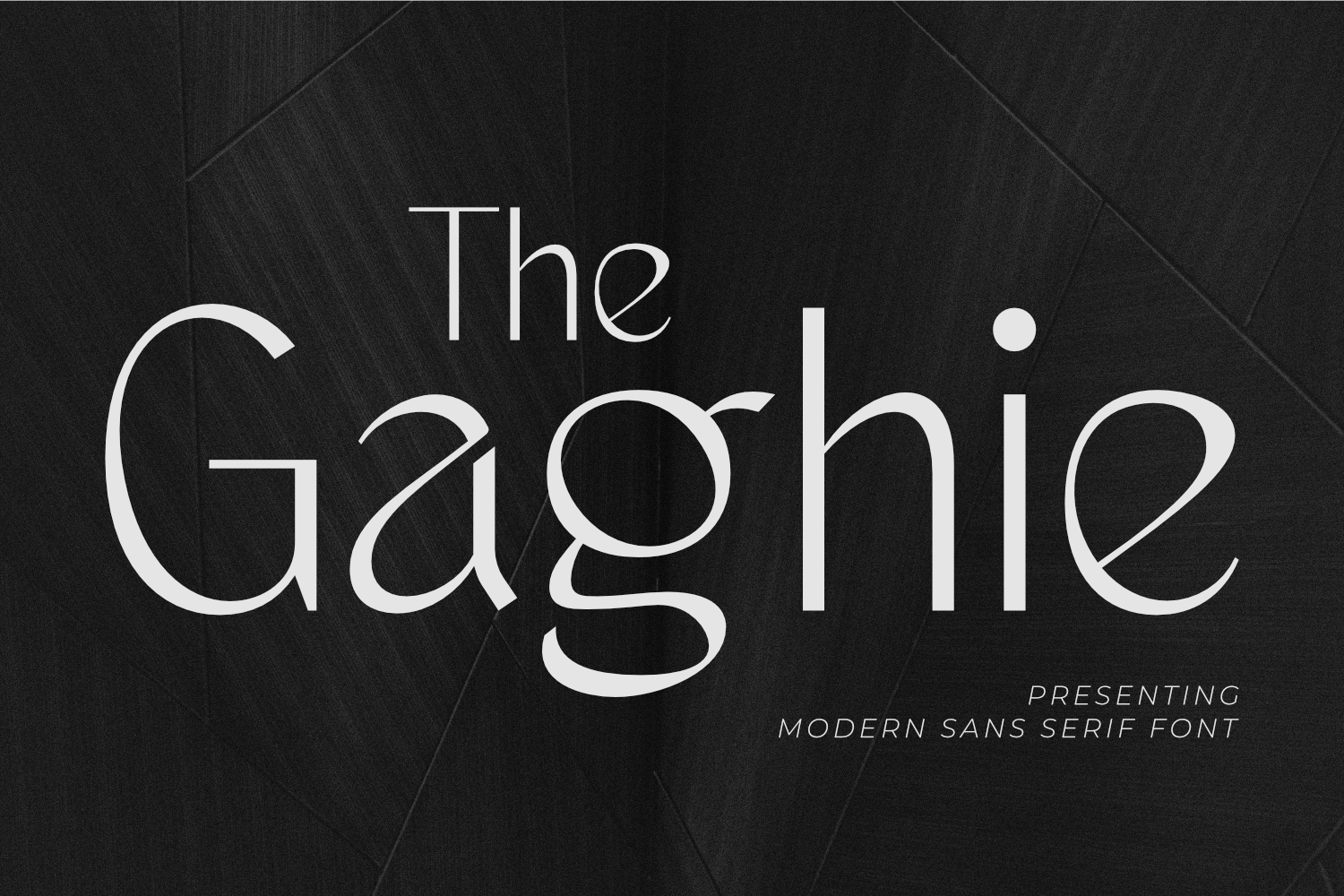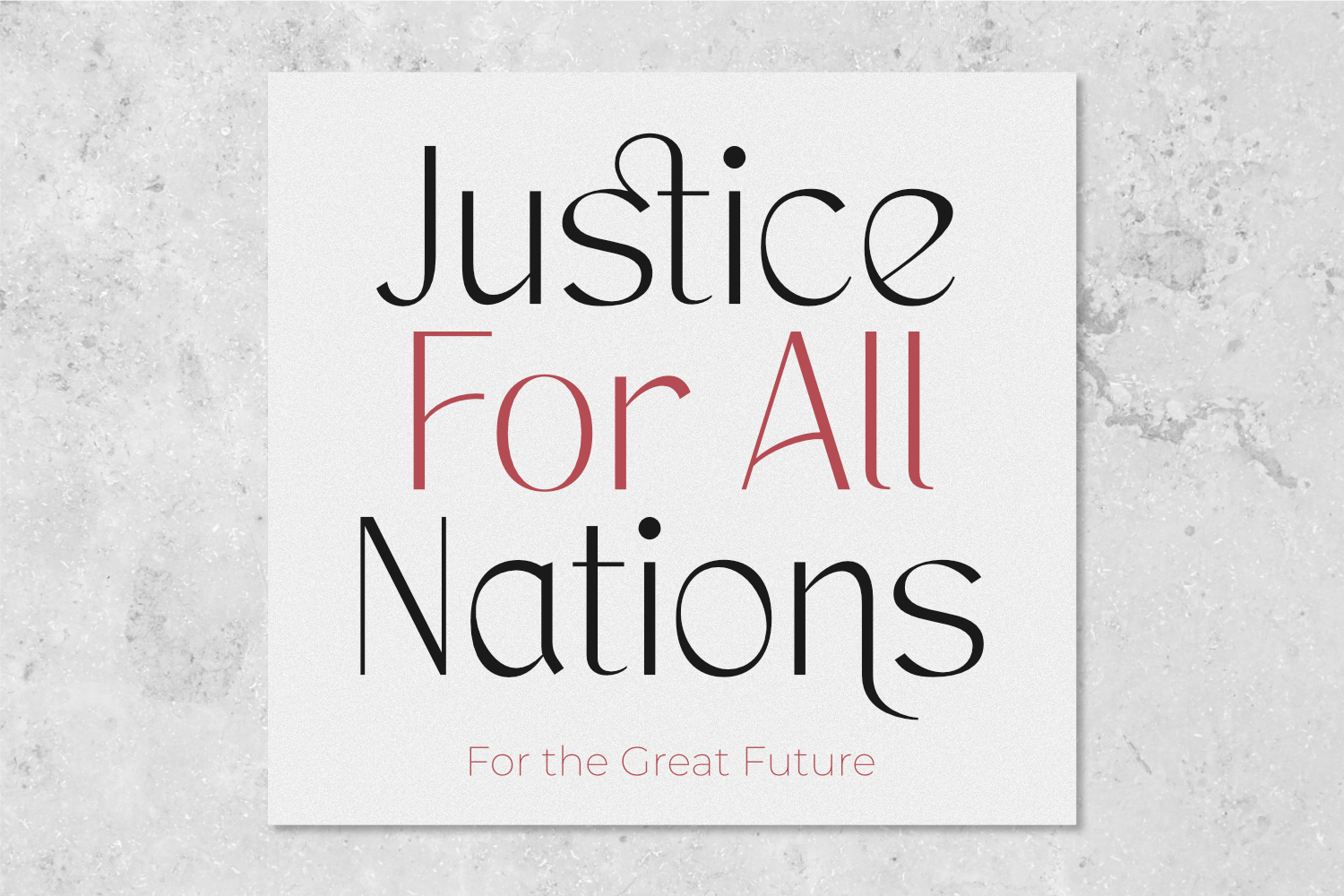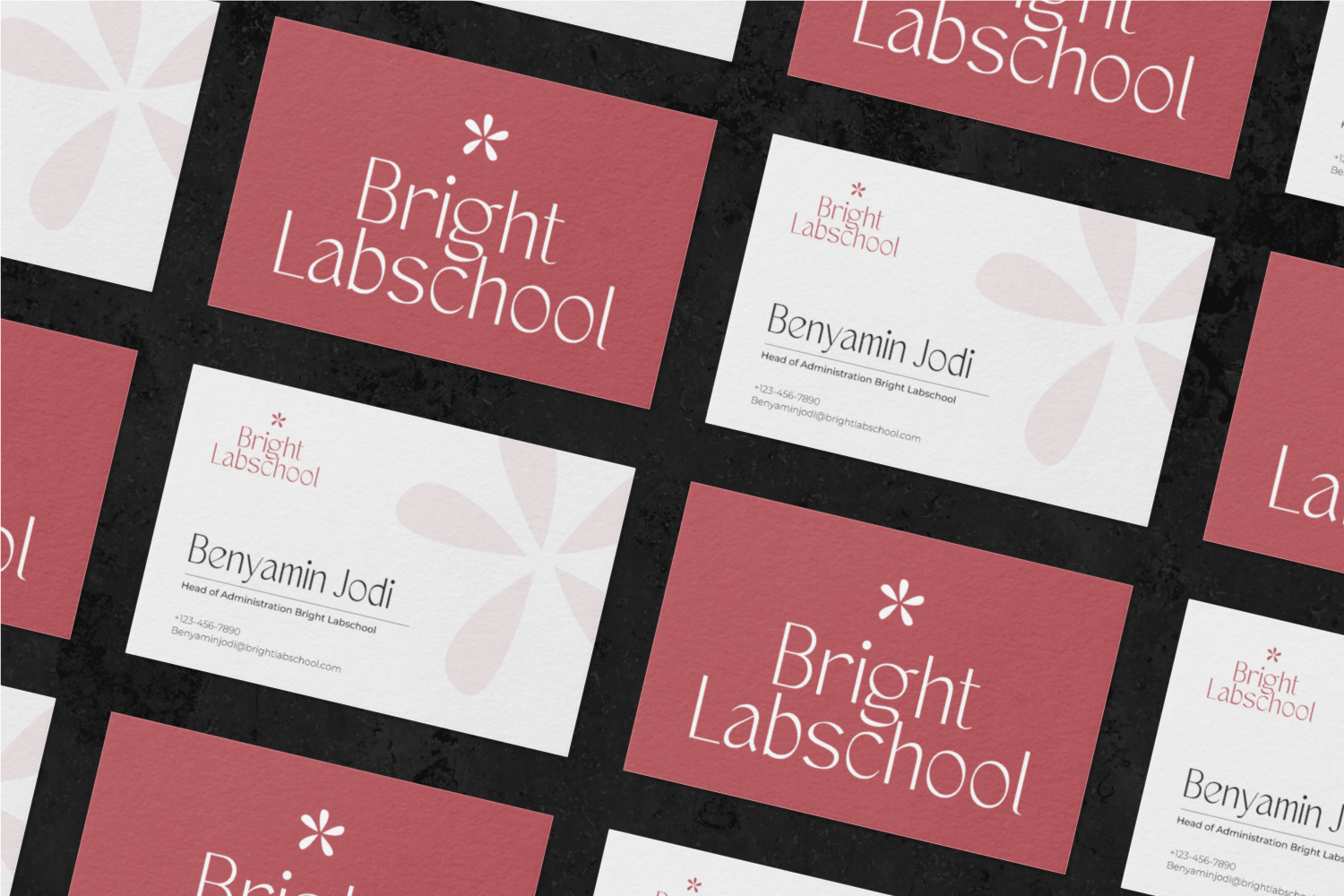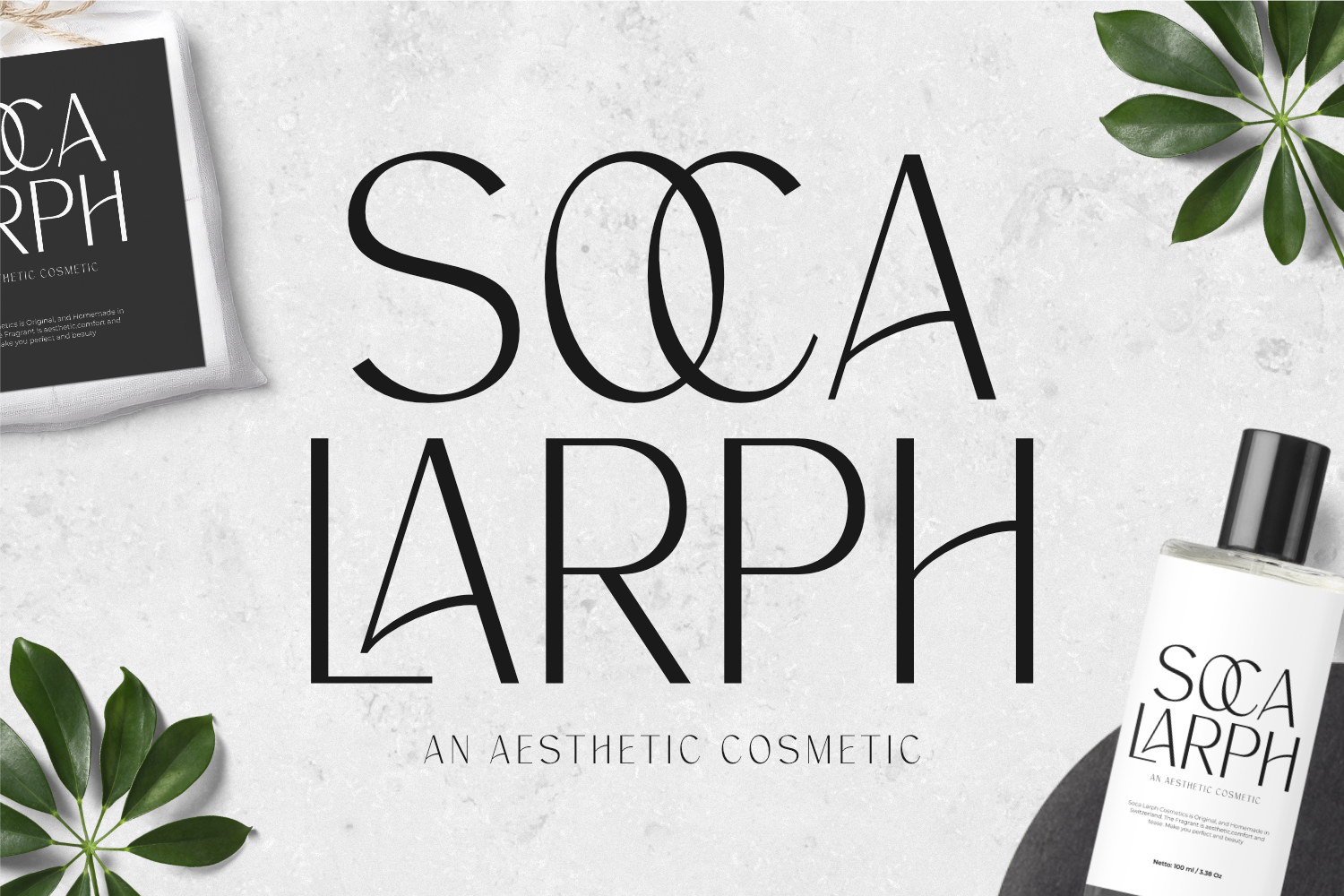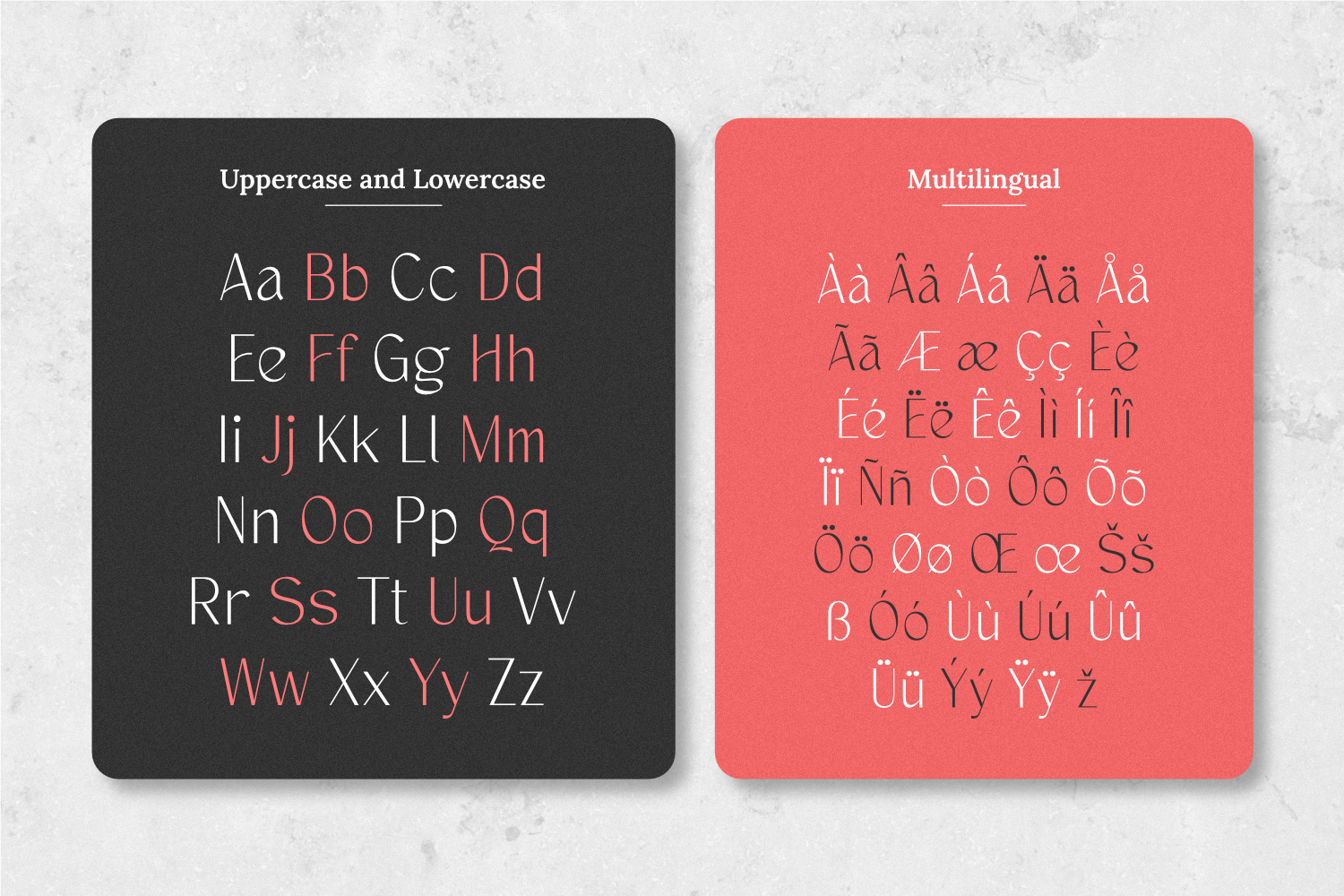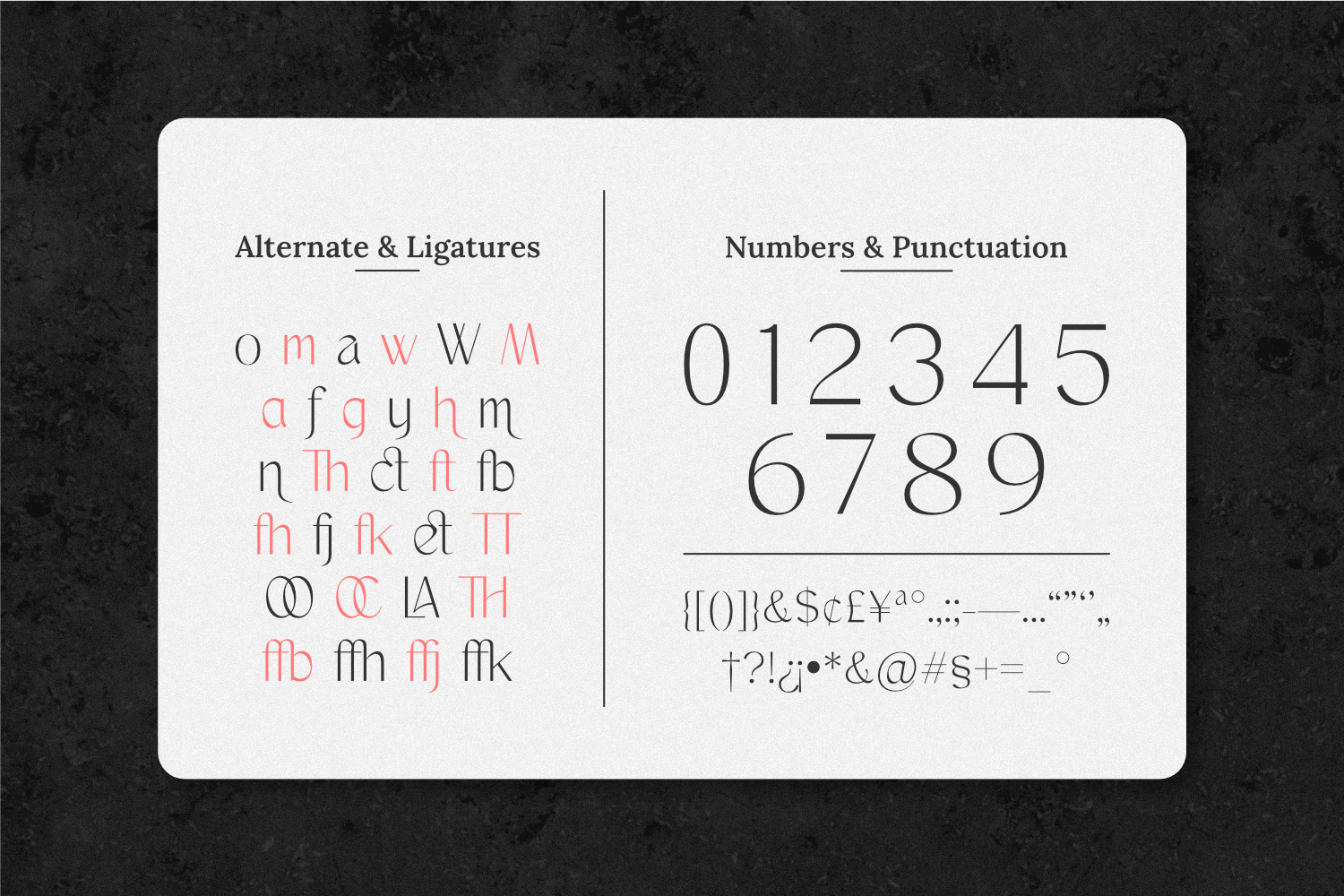
Gaghie
Gaghie is a modern sans serif font with a contemporary personality and unique letterforms, designed to bring a refined elegance to your branding and design work. Its stylish alternates and clean curves make it ideal for fashion branding, editorial layouts, and cosmetics packaging. Gaghie strikes a perfect balance between minimalism and creative flair, offering versatility for both headlines and body text.
With multilingual support, ligatures, and alternates, Gaghie gives you creative flexibility while maintaining legibility and class. From business cards to product logos, this font ensures your design stands out with a high-end, artistic aesthetic. Elevate your modern branding with the sophisticated character of Gaghie.